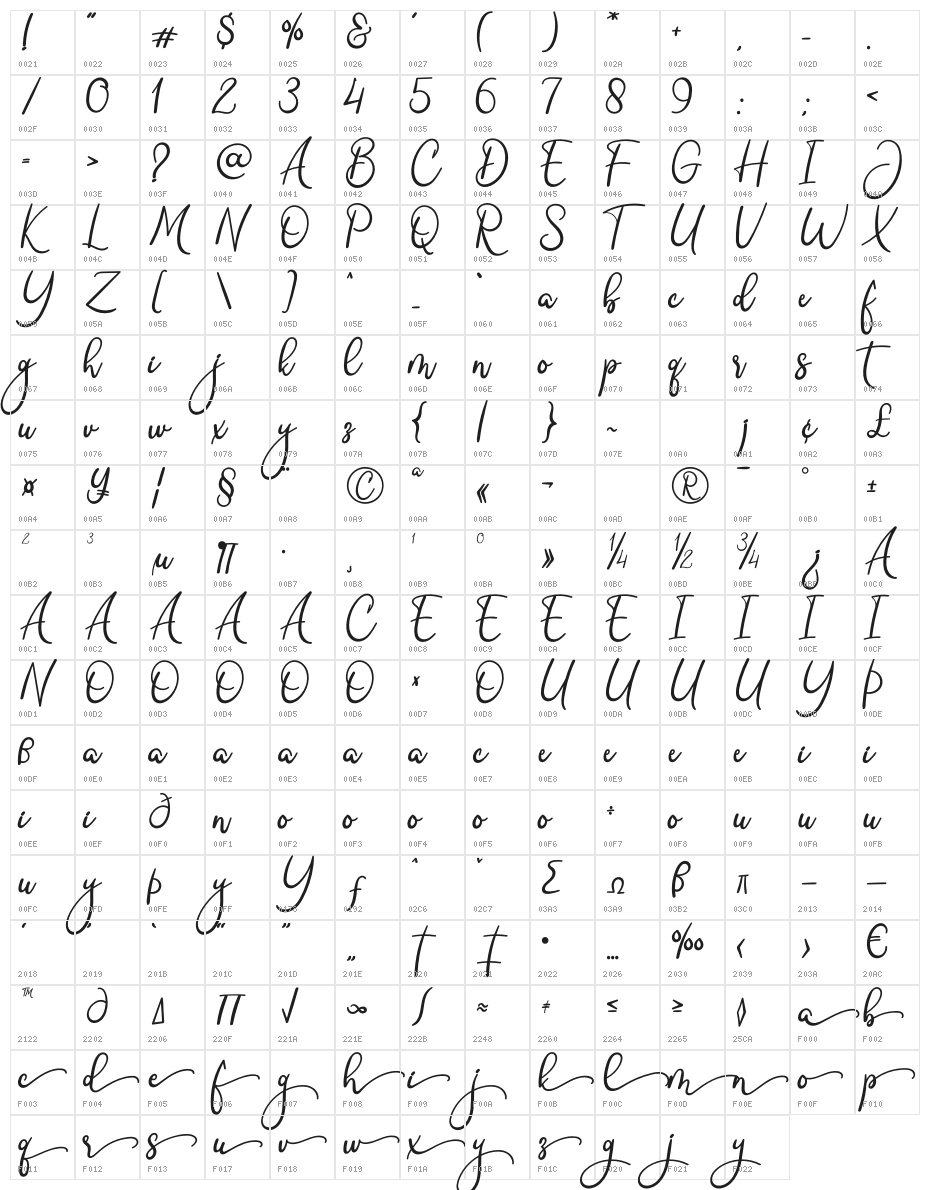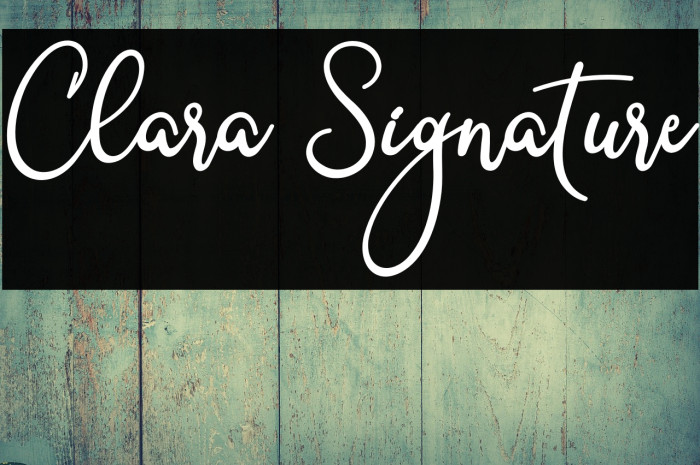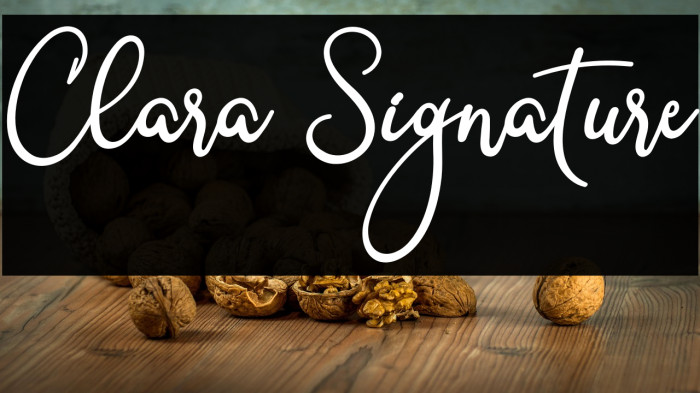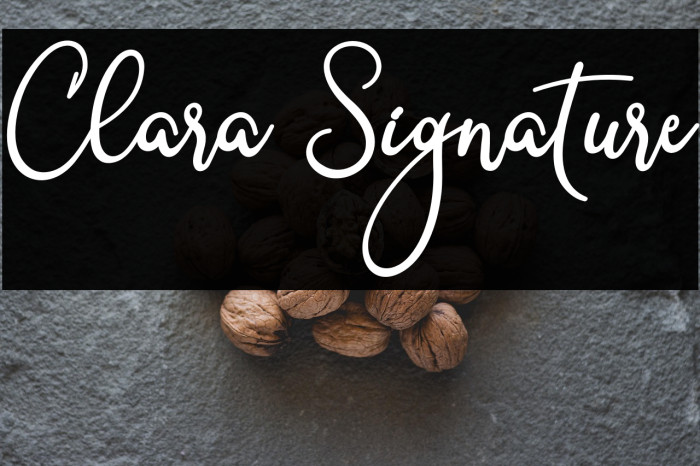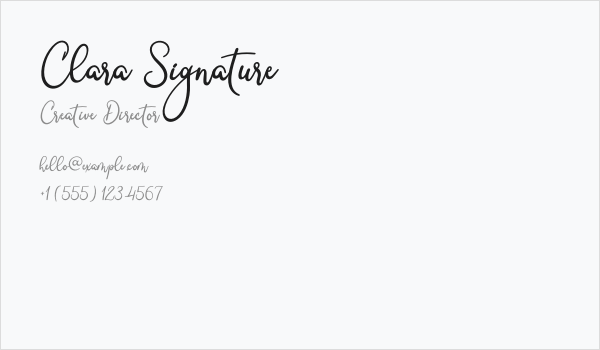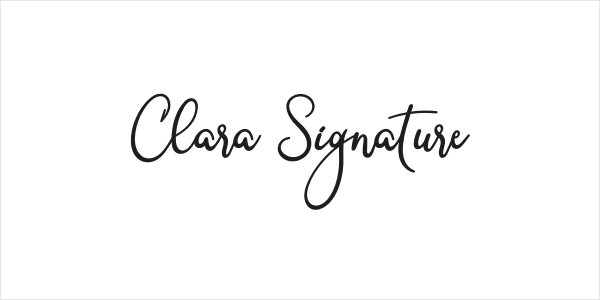
Clara Signature Font
Clara Signature Description
This font exudes a sophisticated and elegant handwritten style, characterized by its fluid and graceful letterforms. The uppercase letters are tall and slender, with a slight slant that adds a dynamic feel. The lowercase letters are more compact, featuring smooth curves and loops that enhance the script's flowing nature. The numerals are consistent with the overall style, maintaining the same fluidity and elegance. Special characters are thoughtfully designed, complementing the alphabet with their stylish and cohesive appearance. This font is perfect for projects that require a personal touch, such as invitations, branding, and stationery.
Fonts by Airotype Studio
| Use Case | Logos, Invitations, Stationery |
| Proposed Projects | Ideal for wedding invitations, personal branding, elegant stationery, and artistic logos. |